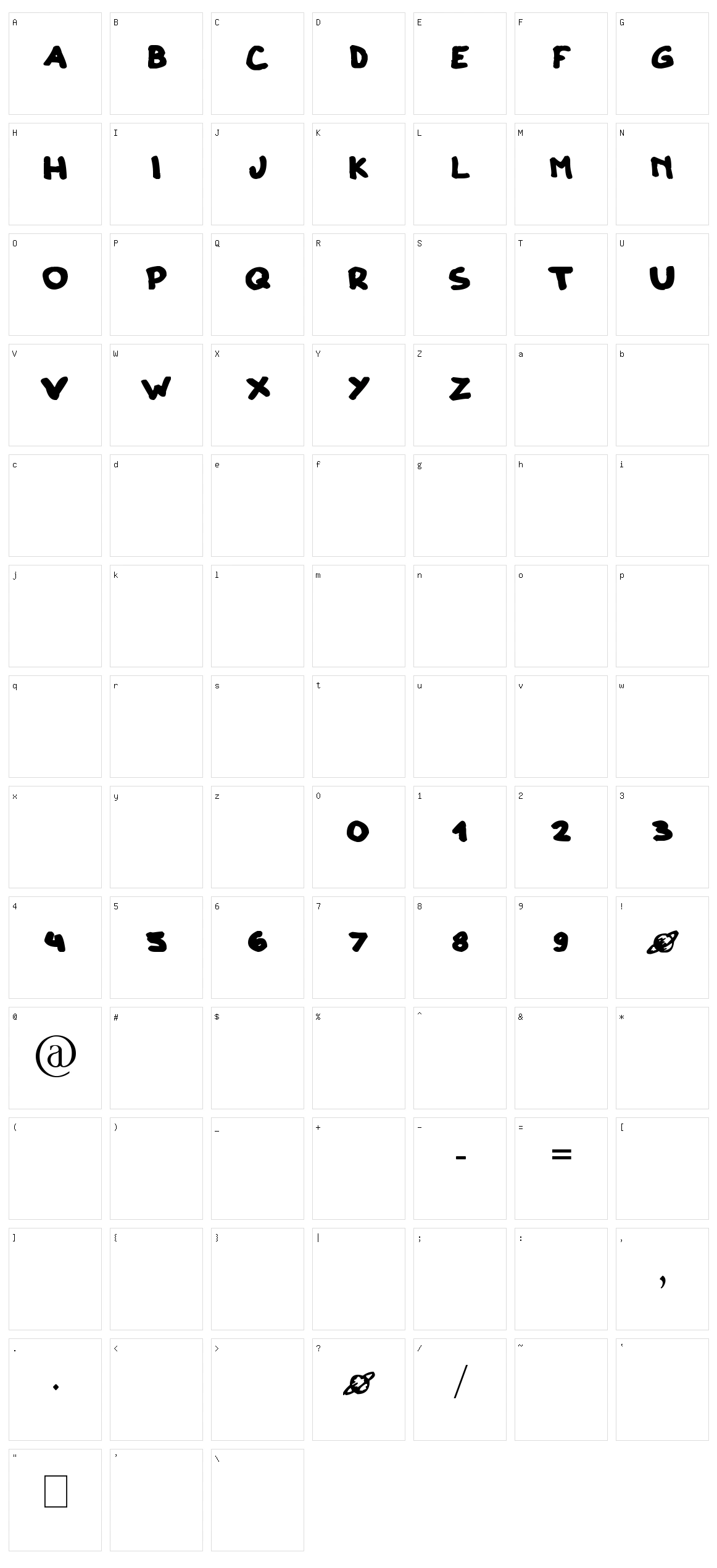
The free font Clono Dos is carefully designed by Topo Topino, showcasing a thoughtful balance of creativity and usability and falls under the Script font style. When you download the ZIP file, it contains only 6.52 KB of font files, making it lightweight and quick to download. Please review the license details below to understand permitted usage and distribution rights. If license information is not available, we recommend using this font for personal projects only or contacting the author directly for commercial usage permissions.